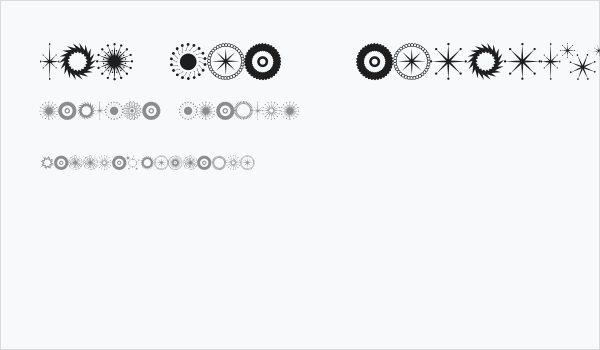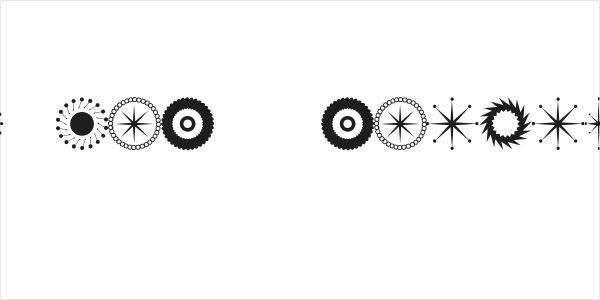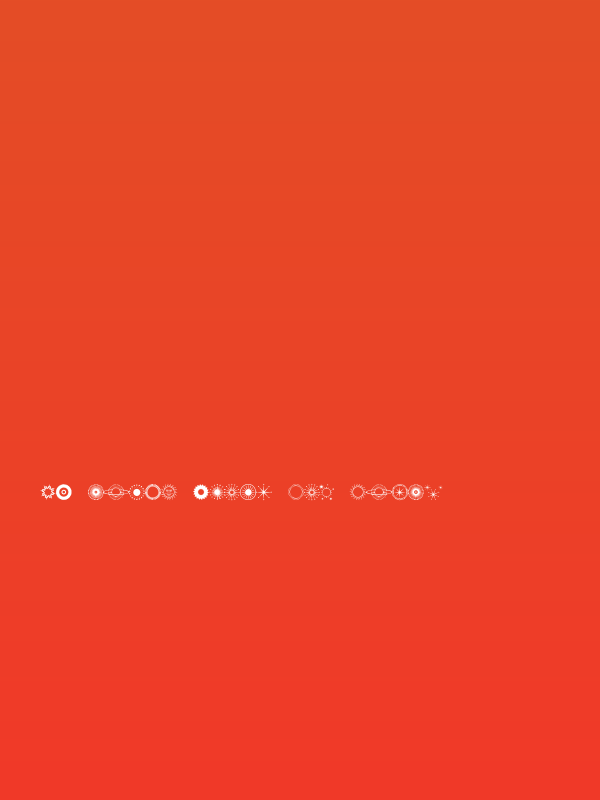
Star Time 4: Remnants JL Font
Star Time 4: Remnants JL Description
This is a decorative font composed entirely of intricate starburst and celestial-themed symbols. Each character is a unique design, featuring elements like sunbursts, stars, and abstract cosmic shapes. The designs are bold and eye-catching, with a mix of solid and outlined forms. The font is highly stylized, making it suitable for creative and artistic projects. It lacks traditional alphabetic characters, focusing instead on ornamental and thematic imagery.
| Use Case | Logos, Decorative elements, Artistic projects |
| Proposed Projects | Ideal for use in artistic designs, cosmic-themed projects, decorative borders, or as unique bullet points in presentations. |